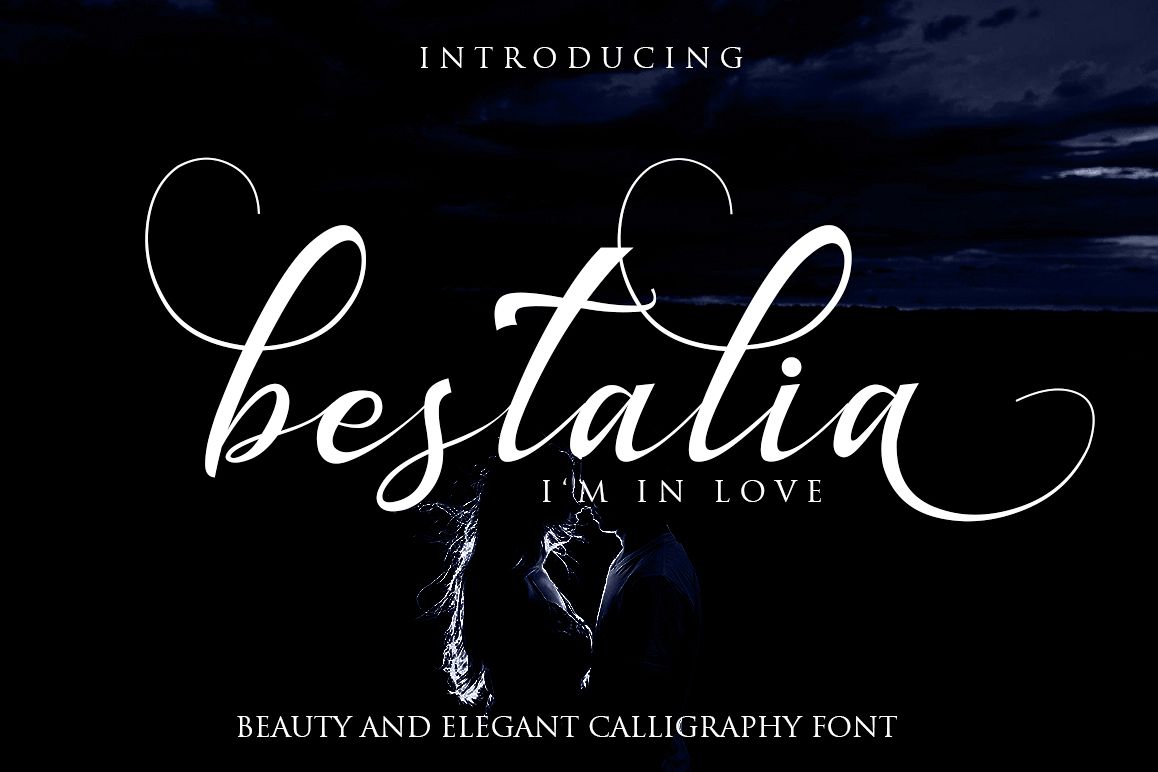
Bestalia Script
Bestalia-Regular
Introducing the elegant new “Bestalia Script” For those of you who are needing a touch of elegance and modernity for your designs, this font was created for you!
Bestalia was built with OpenType and True Type features and includes beginning and ending swashes, alternate swash characters for most lowercase letters, numbers, punctuation, alternates, ligatures and it also supports other languages :). every single letters have been carefully crafted to make your text looks beautiful. With modern script style this font will perfect for many different project ex: photography, watermark, quotes, blog header, poster, wedding, branding, logo, fashion, apparel, letter, invitation, stationery, etc.